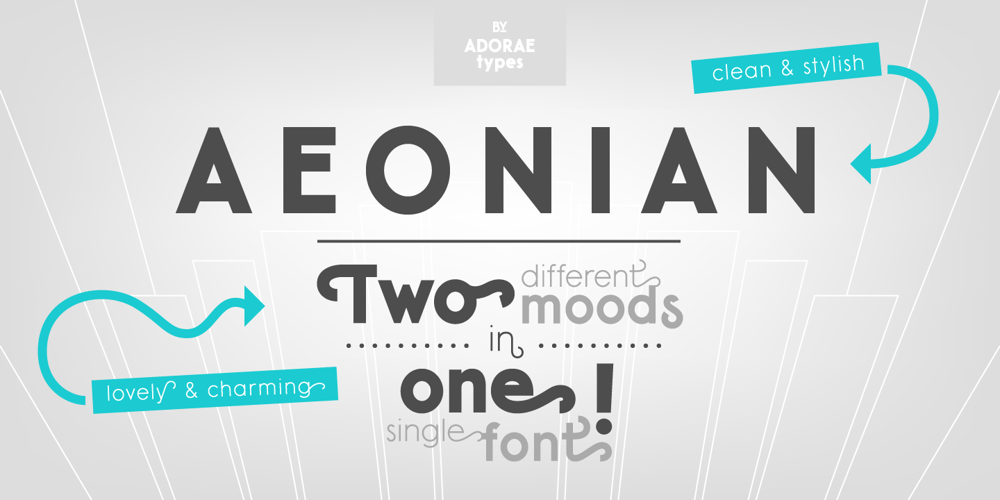
Aeonian Font Family was designed by Emilia Adorno and published by Adorae Types. Aeonian contains 11 styles and family package options. Aeonian, designed by Emilia Adorno, was mostly inspired by the iconic morphology adopted by the arts of the 1920s. One hundred years later we can still see the resemblance between the wants and the needs of now and then to reach for the sky, to look ahead and enter the future in style. Now as then, we seek the right tools to do so, then once again, we embrace the rational, yet elegant and stylish forms of simplicity, geometry and symmetry. At the same time, there is a strong and growing need for a warmer approach to creating lovemarks. For that, Aeonian’s alternates hold attractive, soft and inviting shapes to an emotional appeal. Aeonian is a combination of all of them. A rational side entwined with an emotional one.Born a geometric sans, Aeonian ended up being a 2 in 1 font with a sans serif set and alternates reaching over 1200 glyphs. The entire family contains 6 weights, from thin to black, with its matching italics. It features a variety of ligatures to be used as connectors, specially for display. It also offers multilingual support, even for certain display ligatures. Later, Aeonian kept growing, with stylistic alternate sets of initial, mid and final glyphs. These are its arms to reach for infinity with a warm heart.The wide range of possibilities that Aeonian offers, makes it the best font for creating vast design systems with a rich visual language.